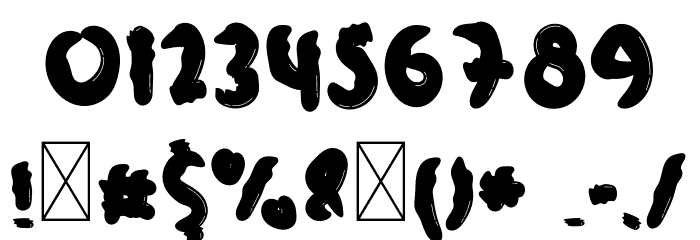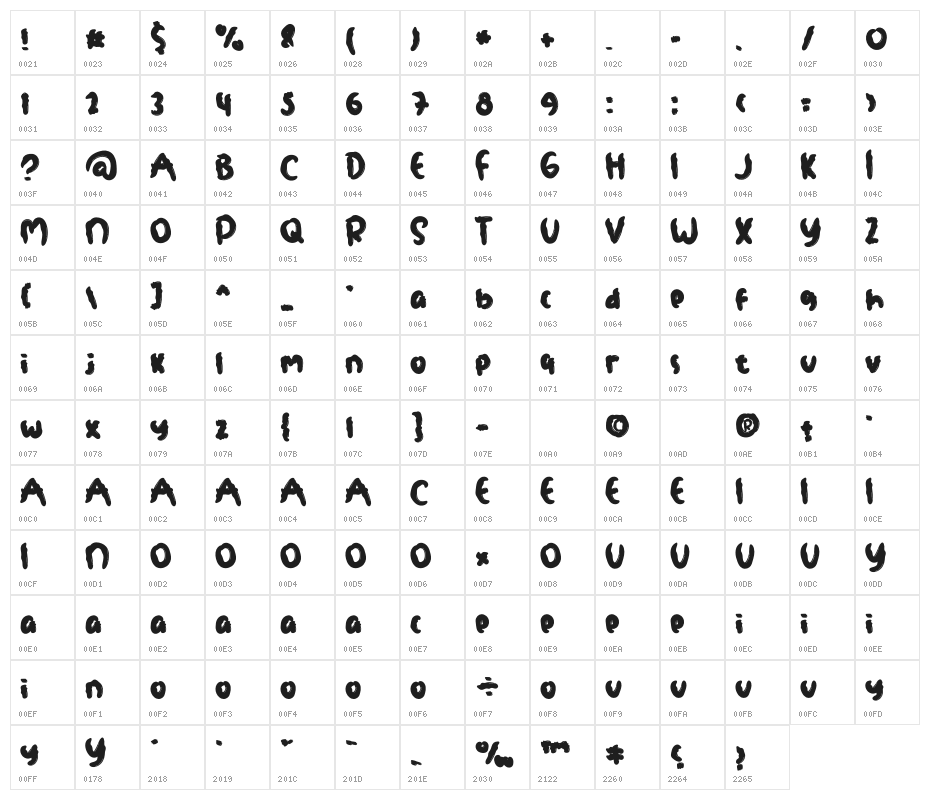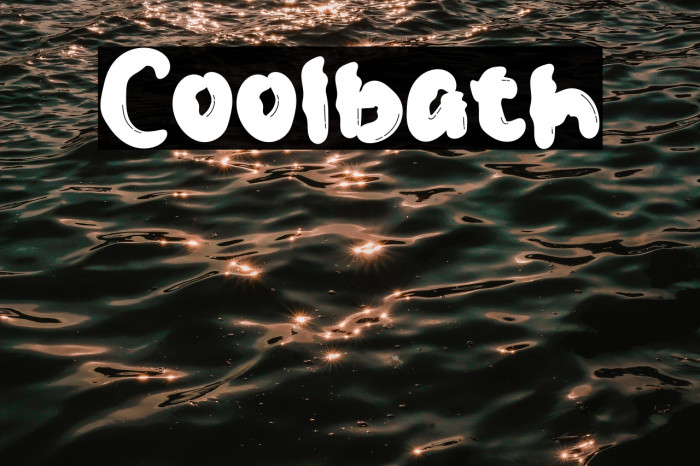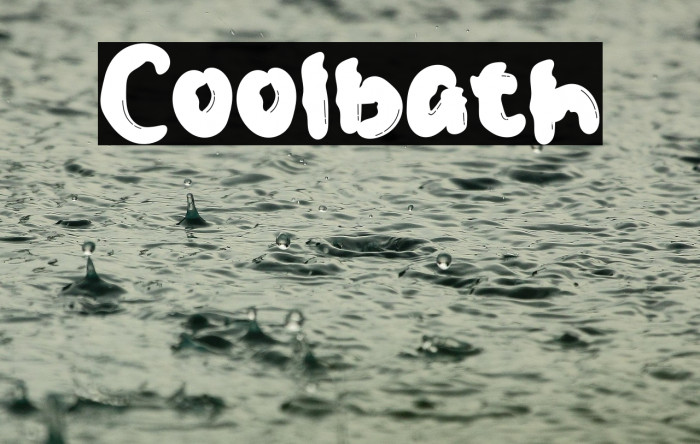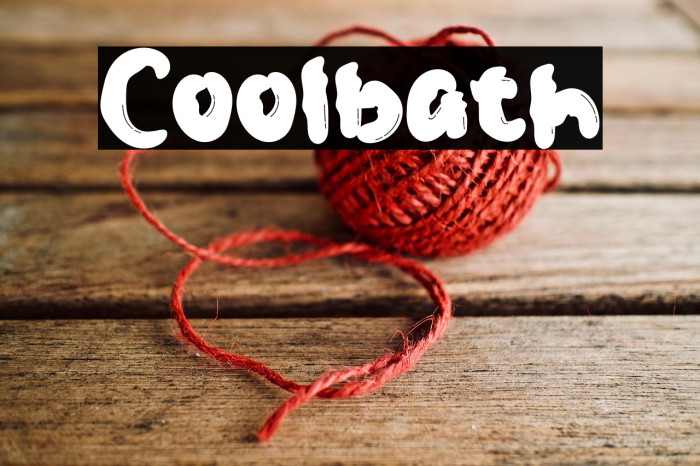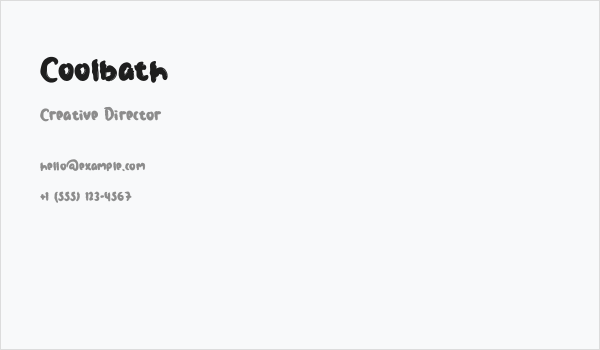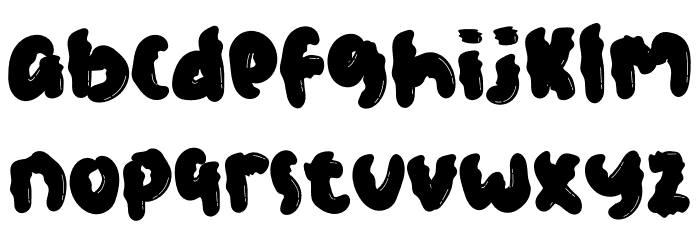
Coolbath Font
Coolbath Description
This font features a bold, playful style with a hand-drawn appearance. The characters are thick and rounded, giving a sense of fun and creativity. The strokes are uneven, adding to the casual, artistic feel. The uppercase and lowercase letters maintain a consistent style, with the lowercase being slightly more compact. Numbers and special characters follow the same design, ensuring uniformity across all elements. The font's unique, informal look makes it ideal for projects that require a personal touch.
| Proposed Projects | Ideal for children's book covers, playful branding, creative posters, and informal invitations. |